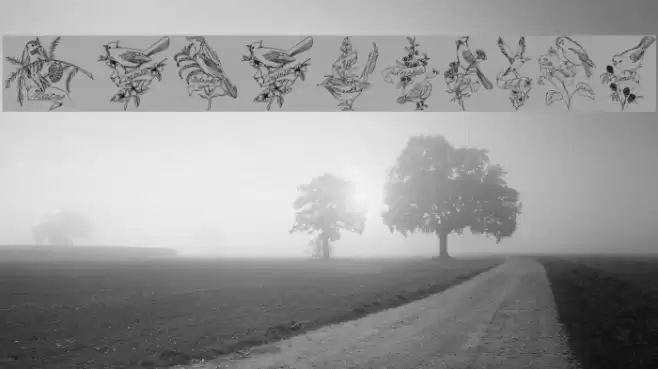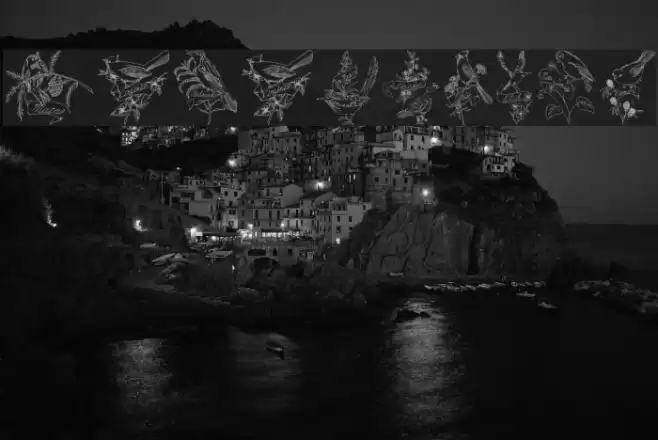
StateBirds Font
StateBirds Description
Highly detailed, hand-drawn illustrations of birds perched on branches or flowers, each representing a unique design for every character. The style is intricate and naturalistic, with fine linework and realistic proportions, evoking vintage scientific illustrations.
Intricate, hand-drawn bird illustrations for each character from Uncategorized fonts.
- Proposed Projects: Nature-themed posters, educational materials, decorative prints, custom invitations, wildlife branding.
- Overall Style: Decorative, Vintage, Naturalistic
- Use Case: Display, Posters, Art Prints, Educational Graphics